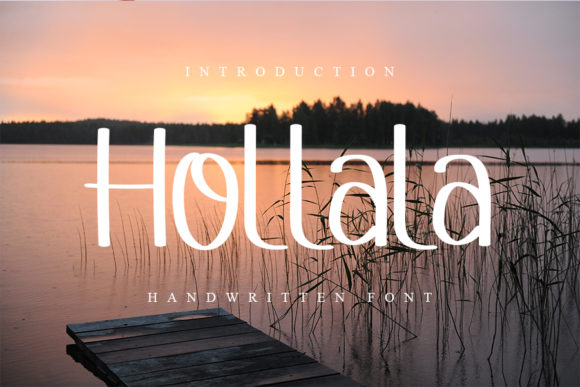
Embark on an Enchanting Typographic Adventure with Hollala: The Whimsical Font for Kids' Logo Designs
Step into a world of pure visual delight with Hollala, a whimsical handwritten font that captures the essence of childhood magic and playful imagination. Handcrafted by the talented team at ONE DESIGN, Hollala is more than just a font; it's an invitation to embark on a typographic adventure where creativity knows no bounds.
As a font specially designed for kids' logo designs, Hollala possesses a distinct and undeniably cute style that will make your designs stand out. Its energetic and fluid strokes create a sense of movement and dynamism, perfectly capturing the boundless energy and enthusiasm of young minds.
Let Hollala be your guide as you create captivating logos that resonate with children's hearts and imaginations. Its playful nature lends itself seamlessly to a variety of designs, from vibrant toy logos to enchanting storybook covers. Unleash your creativity and watch as Hollala transforms ordinary designs into extraordinary works of art.
But Hollala's charm isn't limited to kids' designs alone. Its versatility extends to a wide range of projects, including greeting cards, invitations, posters, and social media graphics. Wherever you seek to add a touch of whimsy and lightheartedness, Hollala is your perfect companion.
So, whether you're a seasoned graphic designer seeking a fresh and unique font or a creative entrepreneur looking to add a touch of enchantment to your brand, Hollala awaits you. Dive into the world of Hollala and experience the joy of creating designs that spark imagination and leave an unforgettable impression.